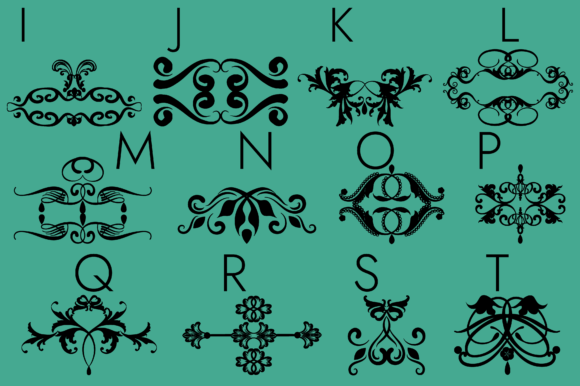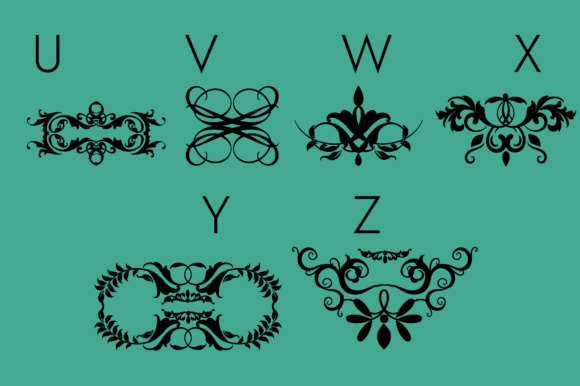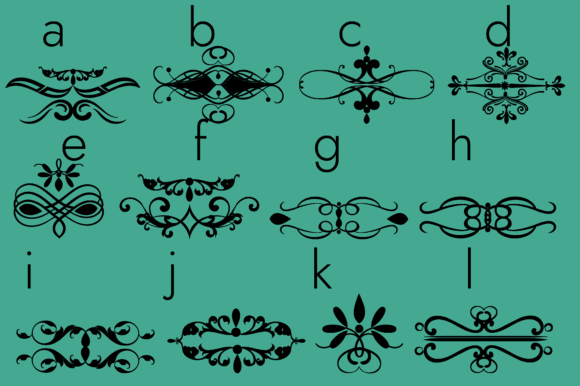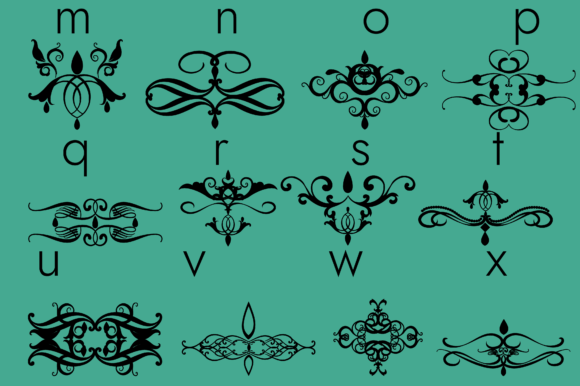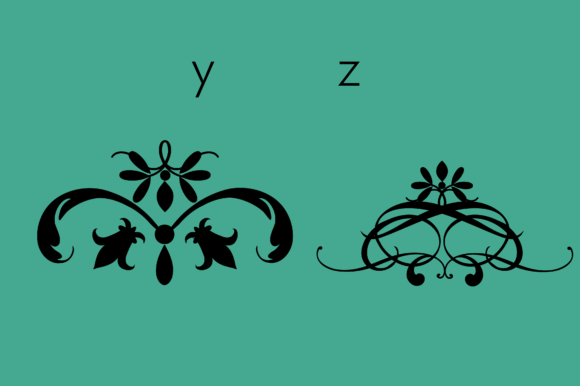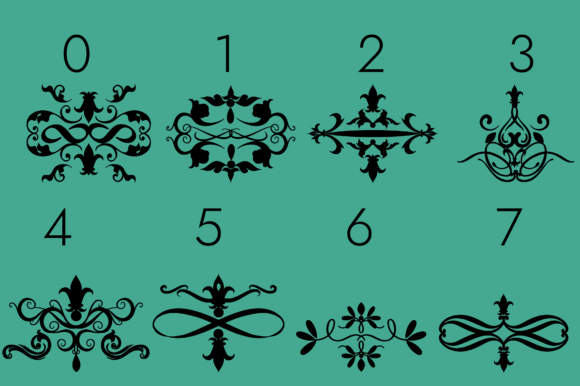
Elevate Your Designs with Flourishes, Dividers and Swirls Font
Are you a designer or crafter looking for a unique and versatile font to take your creative projects to the next level? Look no further than the Flourishes, Dividers and Swirls font, a stunning dingbats font that is perfect for a wide range of designs. With its masterful design and beautiful aesthetic, this font is sure to become a true favorite in your collection.
What is Flourishes, Dividers and Swirls Font?
Flourishes, Dividers and Swirls is a carefully crafted dingbats font that features a wide range of beautiful flourishes, dividers, and swirls. These decorative elements can be used to add a touch of elegance and sophistication to any design, from invitations and greeting cards to branding and packaging. With its unique and intricate designs, this font is perfect for designers and crafters who want to add a personal touch to their work.
Key Features of Flourishes, Dividers and Swirls Font
- Wide range of designs: This font features a vast collection of flourishes, dividers, and swirls, giving you endless options for your designs.
- Masterful design: Each element has been carefully crafted to ensure a beautiful and cohesive look that will elevate your designs.
- Versatile: This font can be used for a wide range of designs, from digital projects to print materials.
- Elegant and sophisticated: The flourishes, dividers, and swirls in this font are perfect for adding a touch of elegance and sophistication to your designs.
Uses for Flourishes, Dividers and Swirls Font
Flourishes, Dividers and Swirls font is perfect for a wide range of design projects, including:
- Invitations and greeting cards: Add a touch of elegance and sophistication to your invitations and greeting cards with the beautiful flourishes and swirls in this font.
- Branding and packaging: Use this font to create unique and eye-catching branding and packaging materials that will set your products apart.
- Digital projects: This font is perfect for digital projects, such as social media graphics, blog posts, and website designs.
- Print materials: Use this font to create beautiful print materials, such as brochures, flyers, and posters.
Why Choose Flourishes, Dividers and Swirls Font?
With so many fonts available, why choose Flourishes, Dividers and Swirls? Here are just a few reasons why this font stands out:
- Unique and distinctive: This font features a unique and distinctive design that will set your work apart from others.
- High-quality design: Each element in this font has been carefully crafted to ensure a high-quality design that will look great in any project.
Flourishes, Dividers and Swirls font is a beautiful and versatile dingbats font that is perfect for designers and crafters who want to add a touch of elegance and sophistication to their work. With its masterful design, wide range of designs, and ease of use, this font is sure to become a true favorite in your collection. Whether you’re working on invitations, branding, digital projects, or print materials, this font is sure to elevate your designs to the next level.